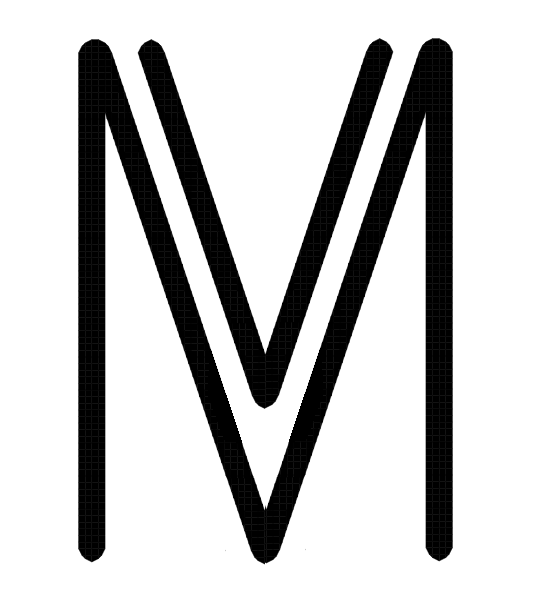
Elmoyenique, thank you for the lovely suggestion. Sadly I found that changing the style to the sample provided creates a letter width that is inconsistent with the rest of the font. That being said, I did quite like your idea of using a flipped M for the W (similar to the lowercase) and made that switch
What about this M? (can also be used for m and w).
Elmoyenique, thank you for the lovely suggestion. Sadly I found that changing the style to the sample provided creates a letter width that is inconsistent with the rest of the font. That being said, I did quite like your idea of using a flipped M for the W (similar to the lowercase) and made that switch